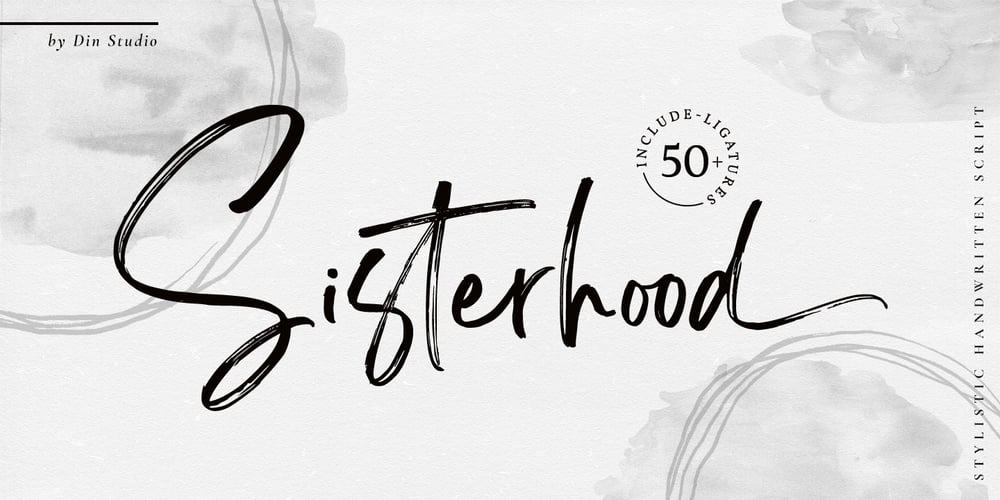
Sisterhood Font Family was designed by Donis Miftahudin and published by Din Studio. Sisterhood contains 1 styles and family package options. Sisterhood is a beautiful brush signature font. Made for any professional project branding. Every letter has a unique and beautiful touch. Made from our talented font designer.Features: 52 Stylistic set 52 Ligatures Multilingual Support PUA encoded